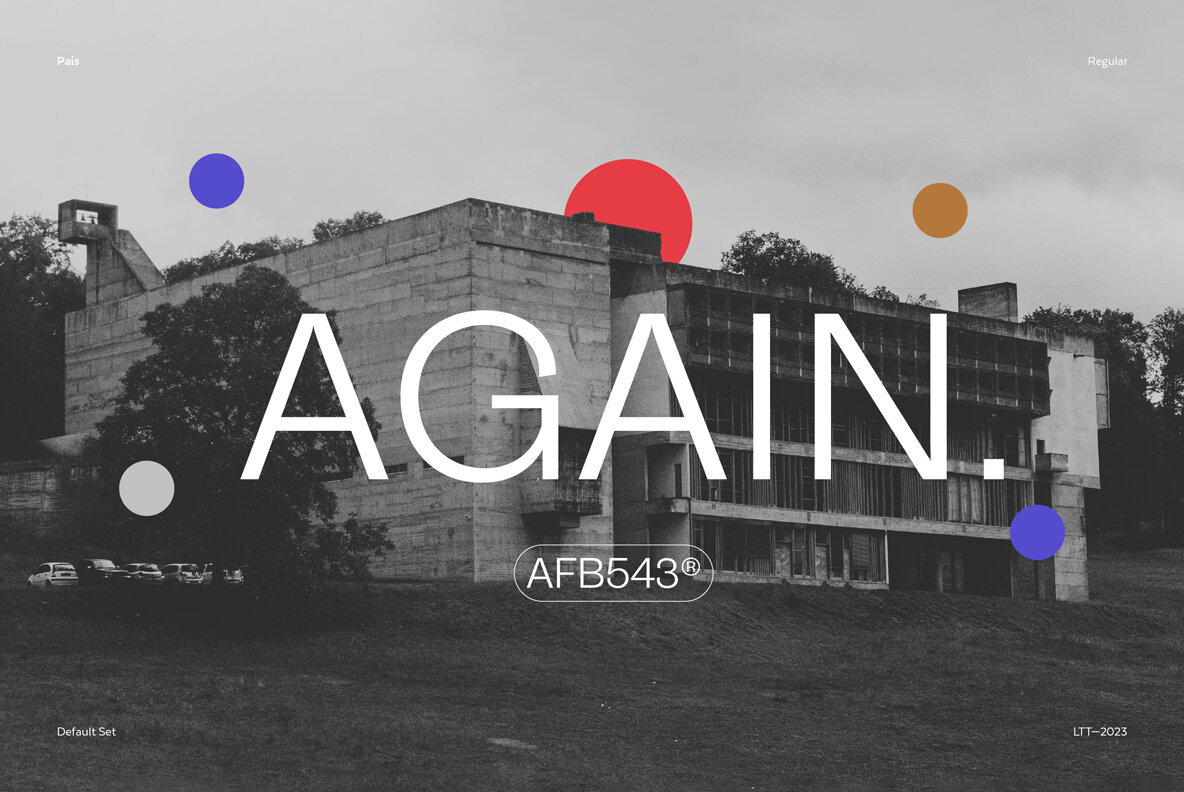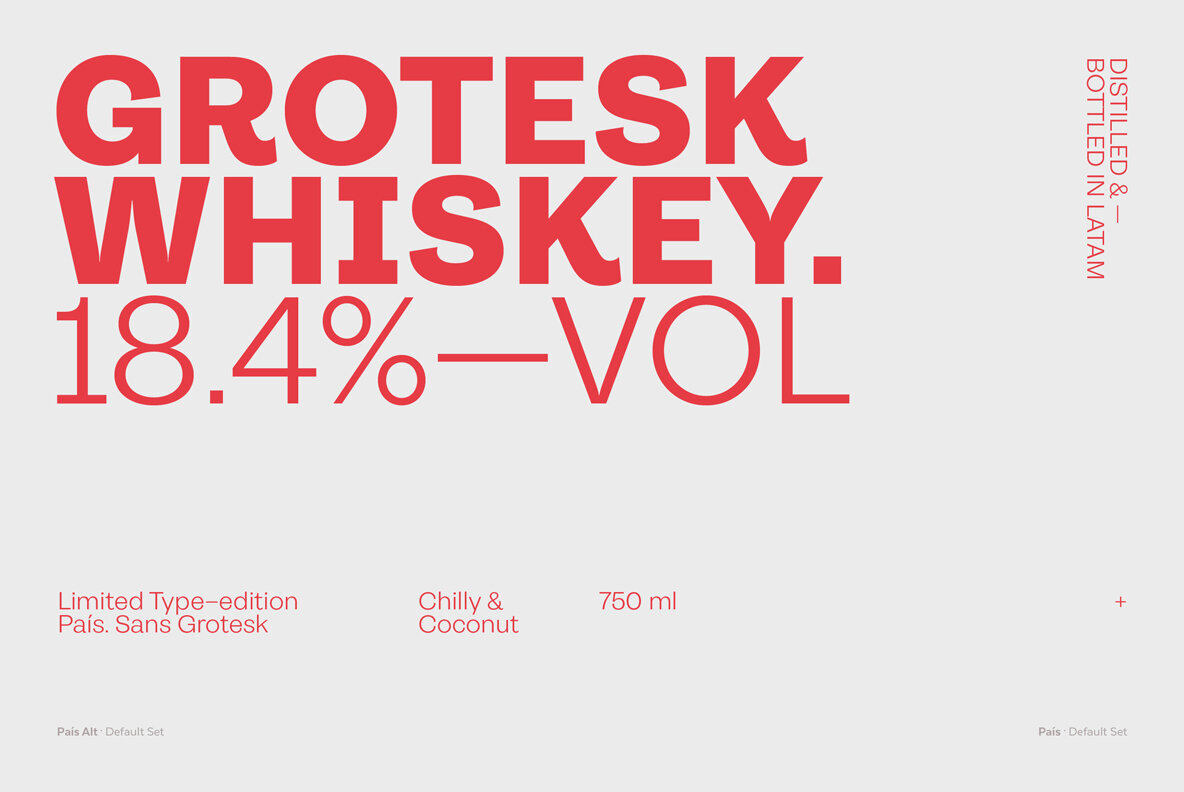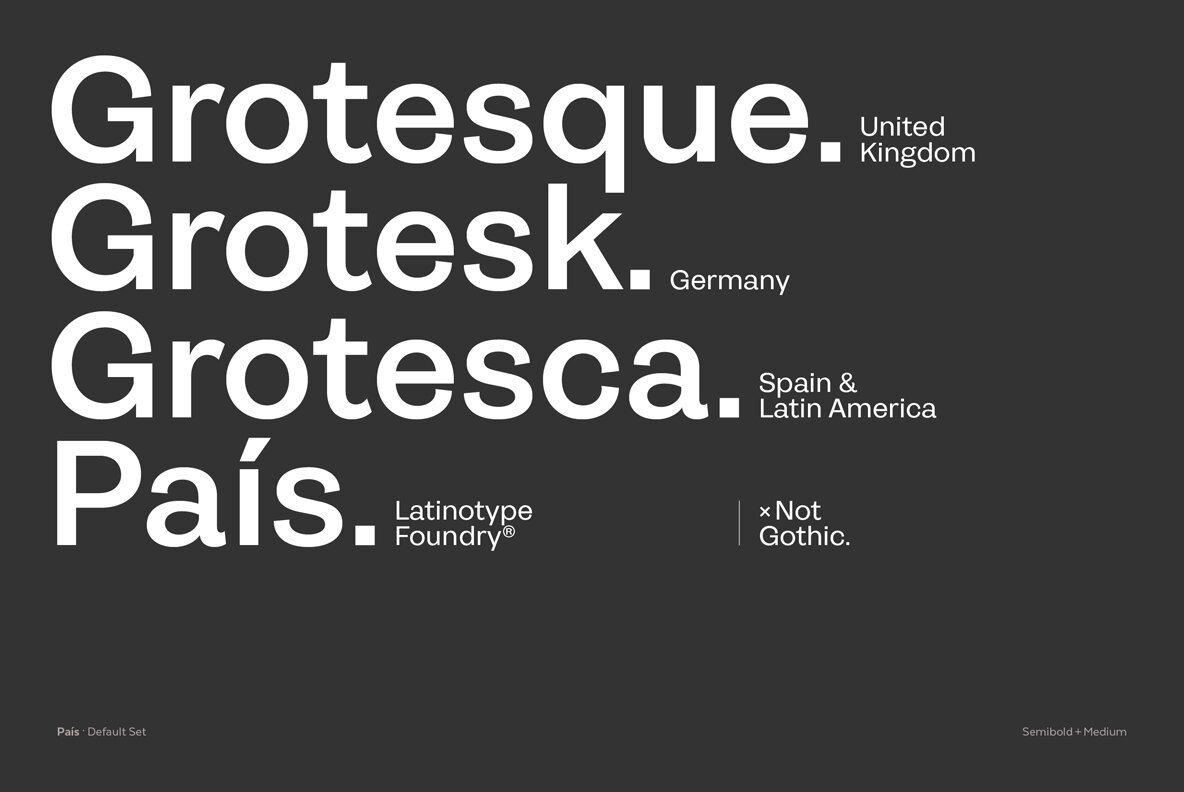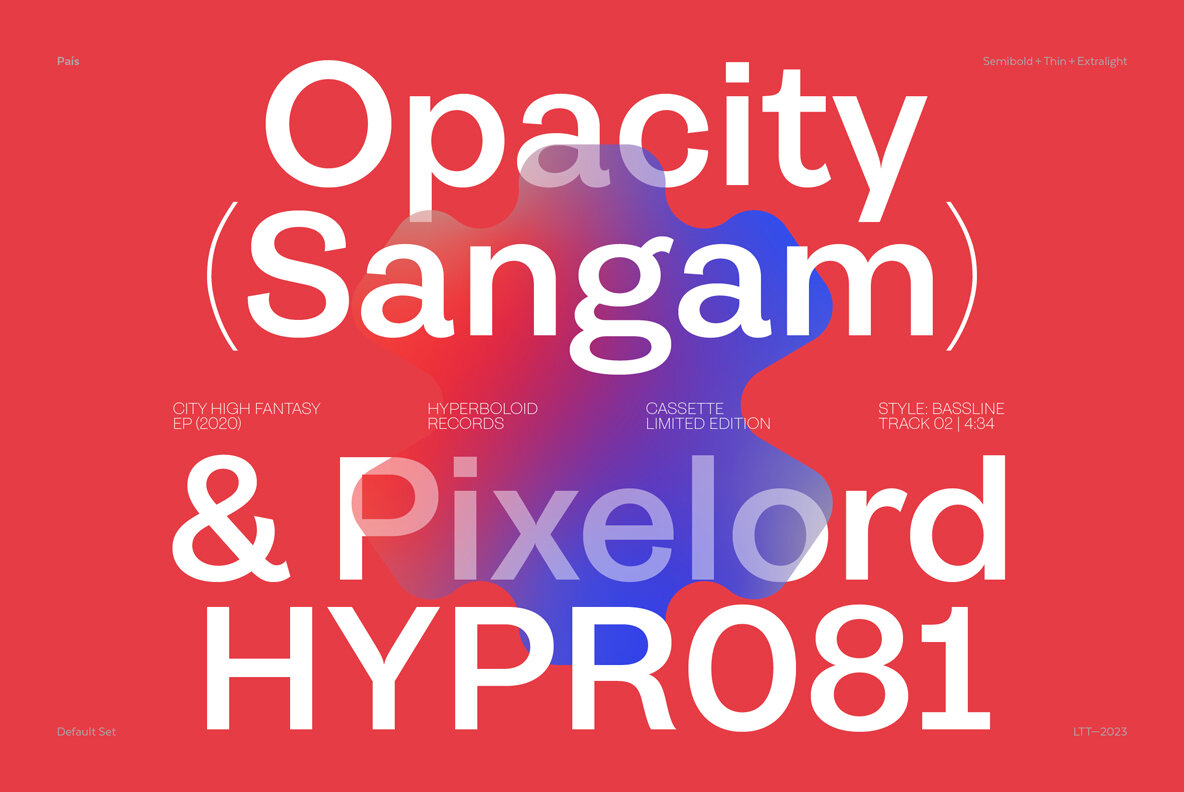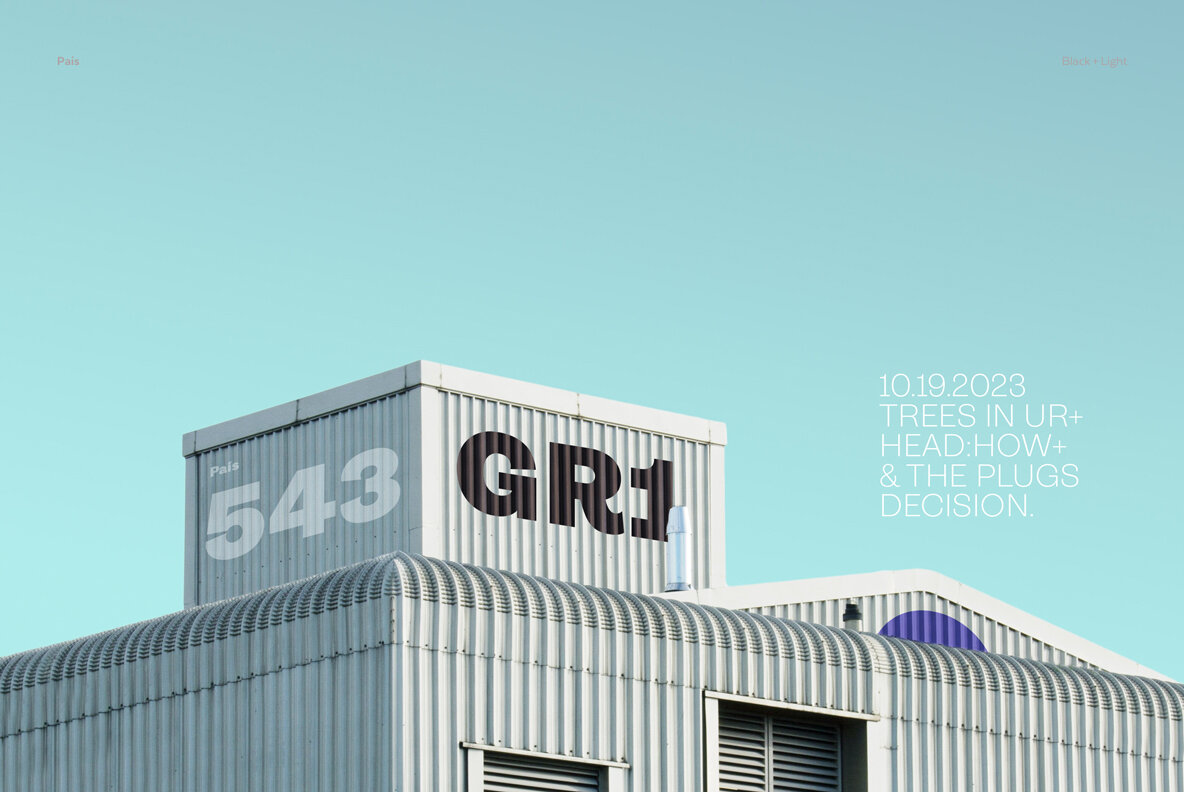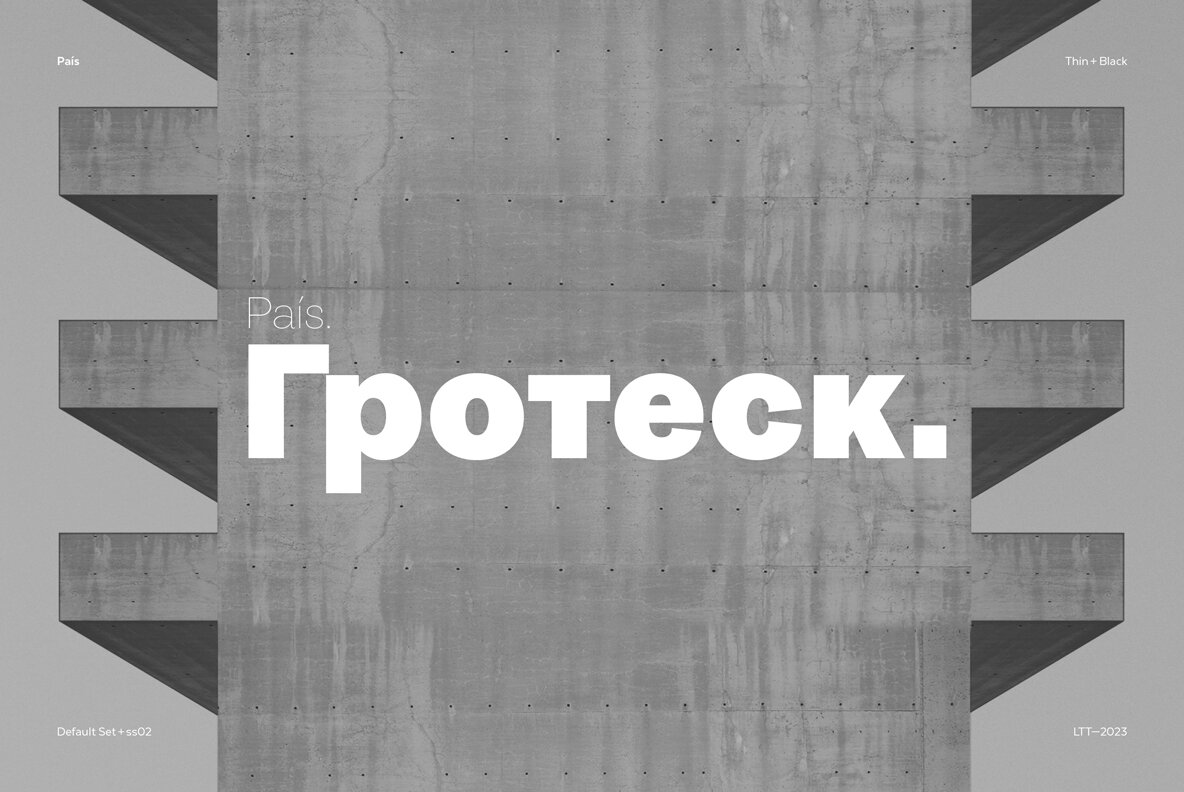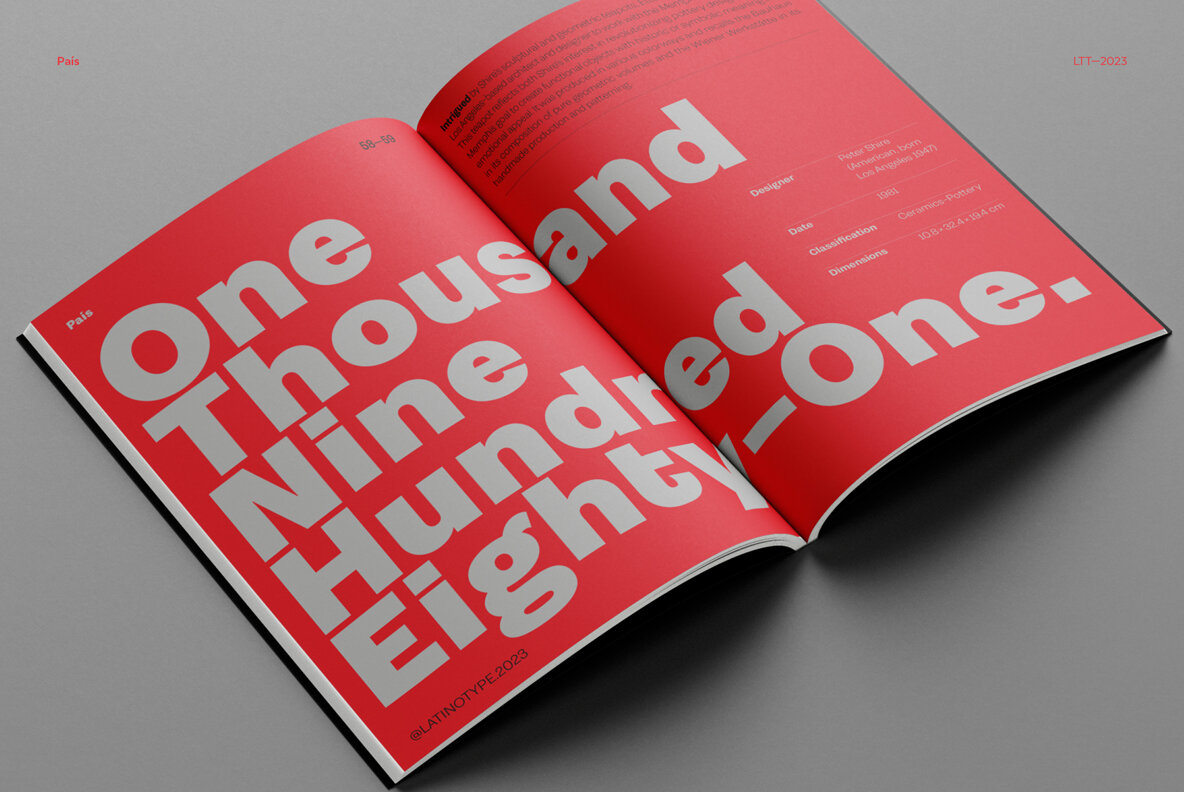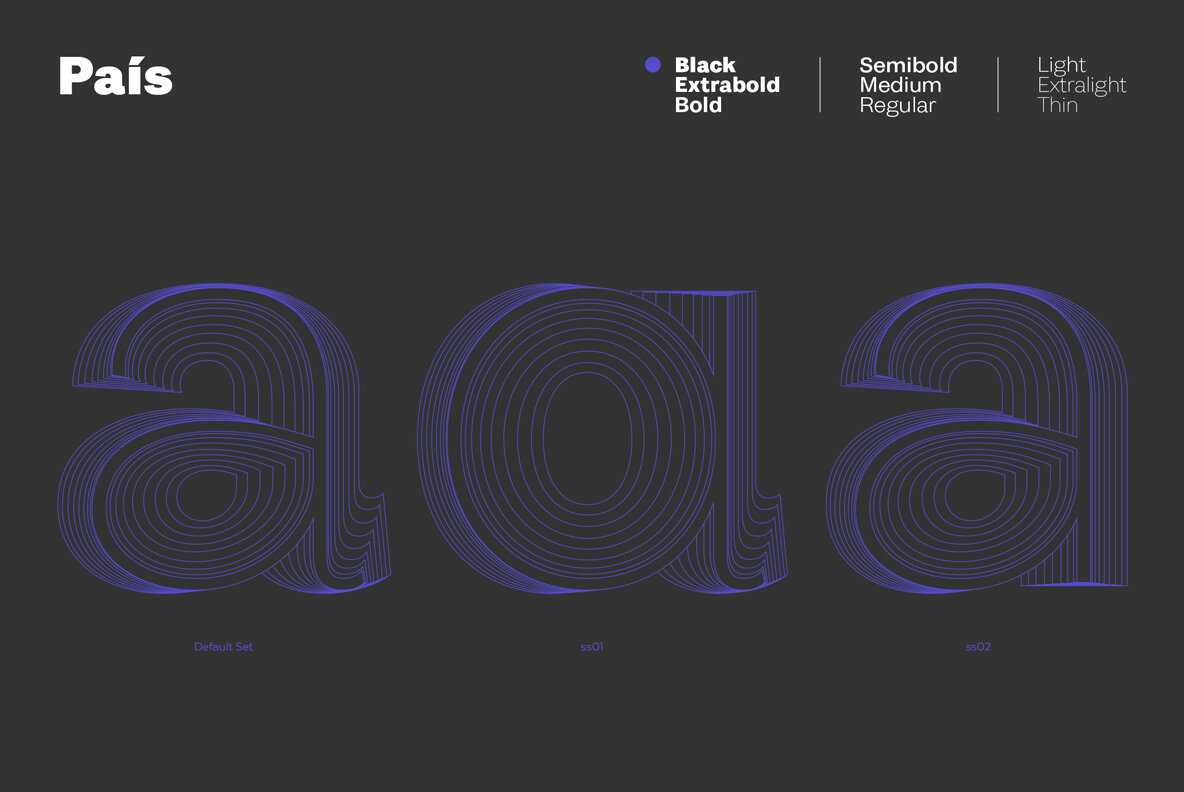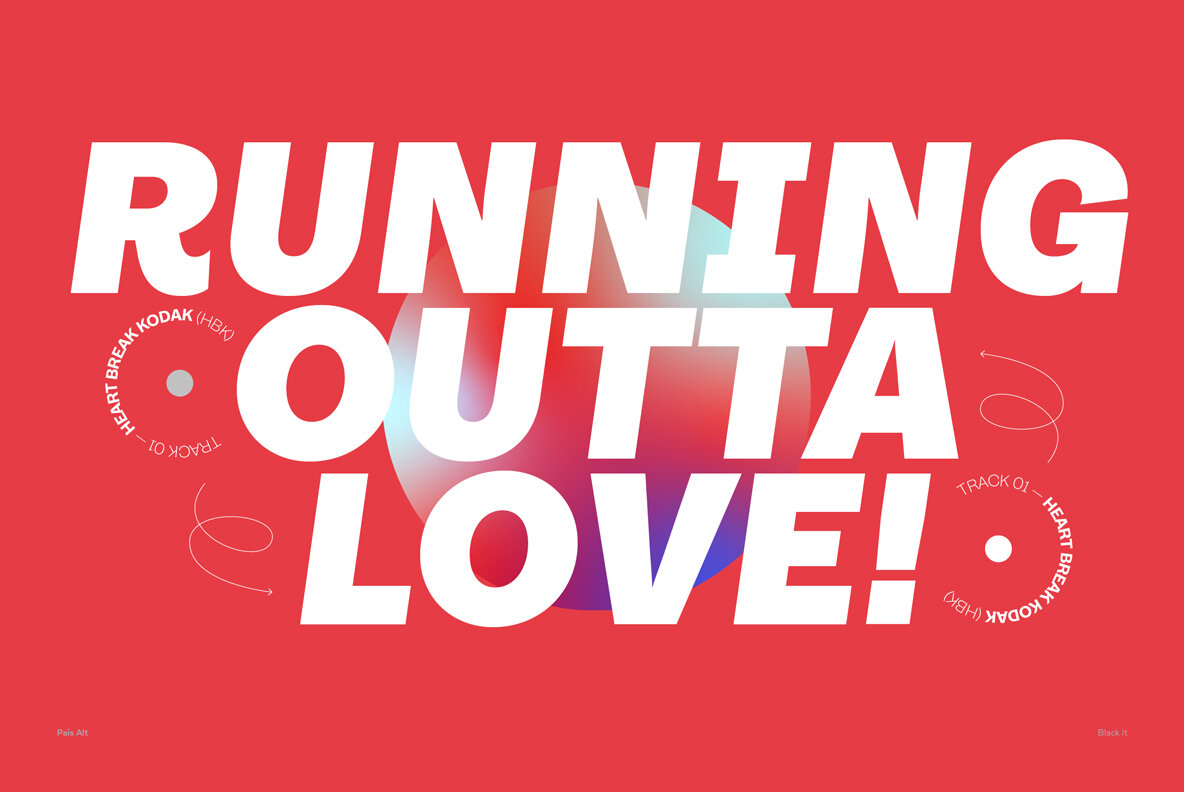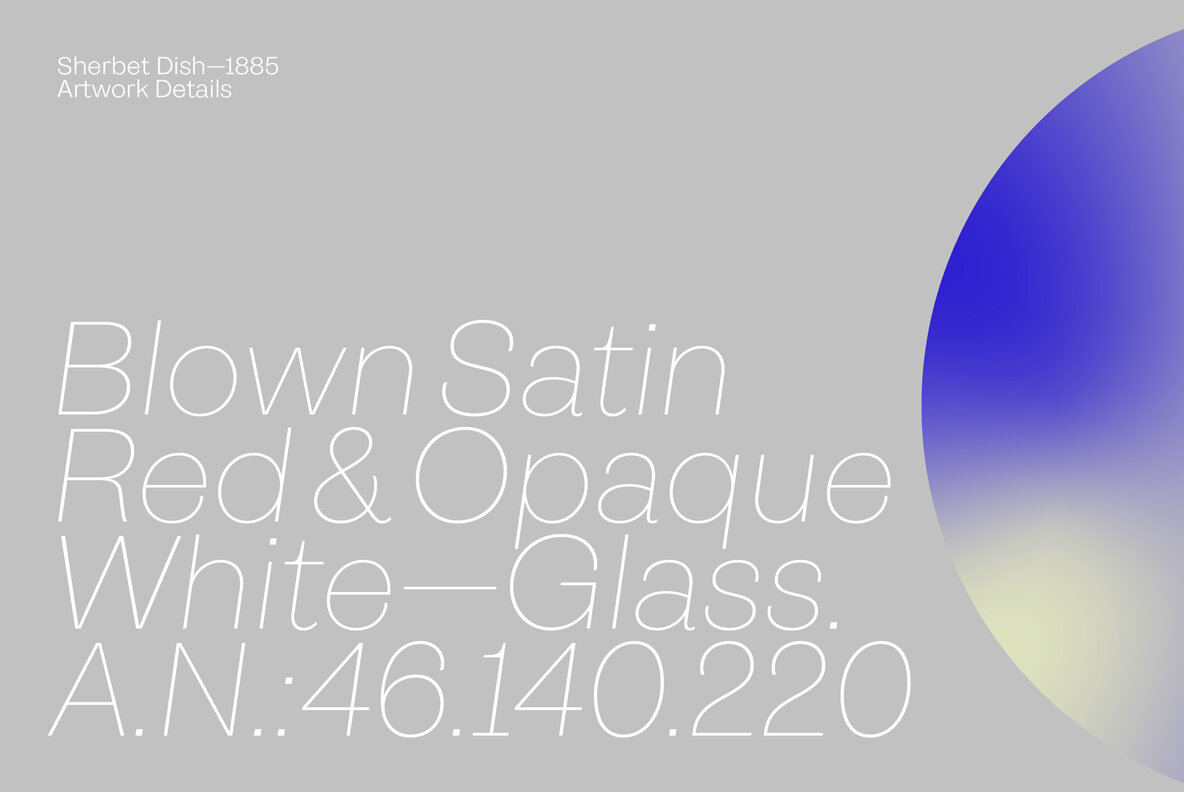
País Font
"País" is a contemporary and modern grotesque sans serif, inspired by the grotesques of the early 20th century, but more geometric and with a wider x-height than its referents; making it ideal for the current times. "País" comes in 2 versions, each with 9 weights, from thin to black, and matching italics, for a total of 36 fonts. The standard sans serif version is fresh, clean, and more ideally neutral. It's a perfect choice for editorial design, branding, headlines, or any other piece of graphic design. The "País Alt" version has more expressive and modern characters, with some giving it a much more playful image. It is ideal for logos, packaging, web and television use. País contains a total of 682 characters that make it possible to write in more than 200 Latin languages and basic Cyrillic.